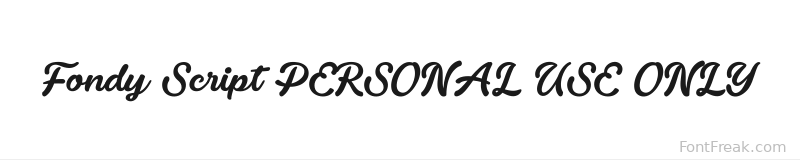
Fondy Script PERSONAL USE ONLY
About Fondy Script PERSONAL USE ONLY
Fondy Script PERSONAL USE ONLY by Mans Greback is a captivating script font that embodies elegance and charm. With its fluid, handwritten style, it captures the essence of personal expression, making it ideal for various creative projects. The font features a moderate stroke weight and a delightful contrast that gives it a dynamic appearance, while the generous spacing between letters enhances readability. Decorative elements, such as gentle curves and swirls, lend a whimsical touch, making it visually appealing and versatile.
This font is perfect for a range of use cases, including wedding invitations, where its romantic flair adds a personal touch to special announcements. It also shines in greeting cards, allowing heartfelt messages to stand out with style. Restaurant menus can benefit from Fondy Script's unique character, giving a sophisticated feel that invites patrons to explore the culinary offerings. Additionally, it can enhance social media graphics, capturing the attention of followers with its inviting aesthetic.
What sets Fondy Script apart is its ability to blend casual elegance with a touch of sophistication. The font's unique personality not only makes it visually appealing but also adds a layer of authenticity to any project. By opting for a Fondy Script PERSONAL USE ONLY font free download, users can infuse their designs with charm and creativity, making it an essential addition to any font collection.